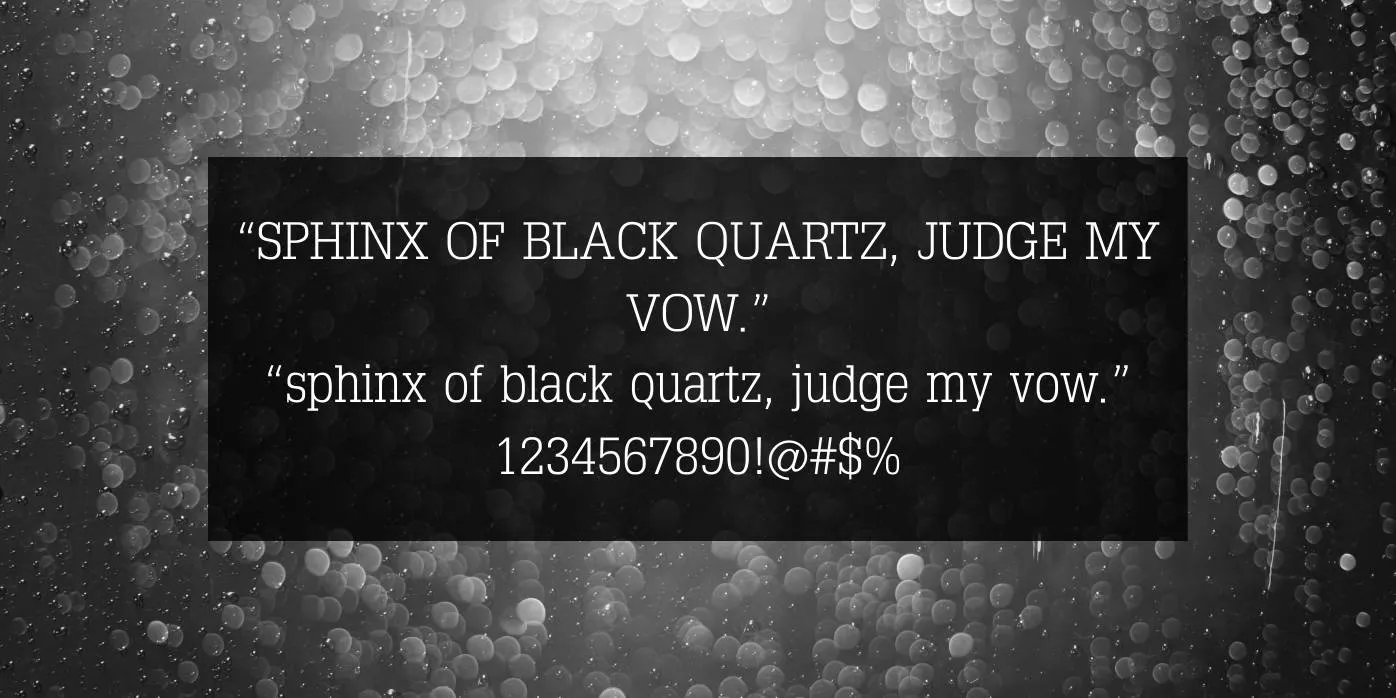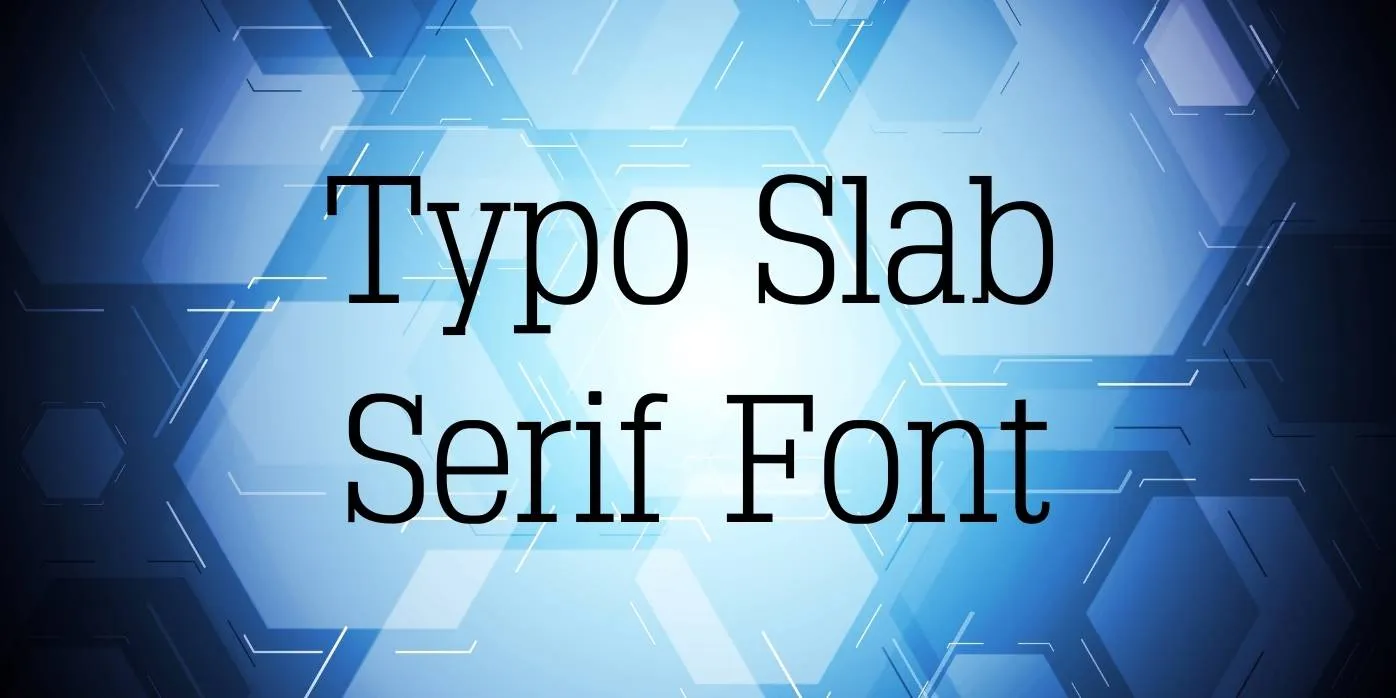
Typo Slab Serif Font
In this post, we present a stylish typeface named Typo Slab Serif Font. This tremendous typeface was designed and published by Manfred Klein. It belongs to the slab serif font family. The designer was inspired by the 20th-century typefaces.
The main aim of the designer is to create a Slab serif font that is perfect for both texts and headlines. This typeface is available in two different styles – regular and italic. You can also use this typeface for Adobe and Canva. Its copy and paste function is suitable for many design projects.
Both styles include 6 different weights from light to black. In addition, this fabulous font family supports multiple languages. You can use it for commercial as well as personal purposes. Typo Slab Serif Typeface will help you to create an elegant and sophisticated design.